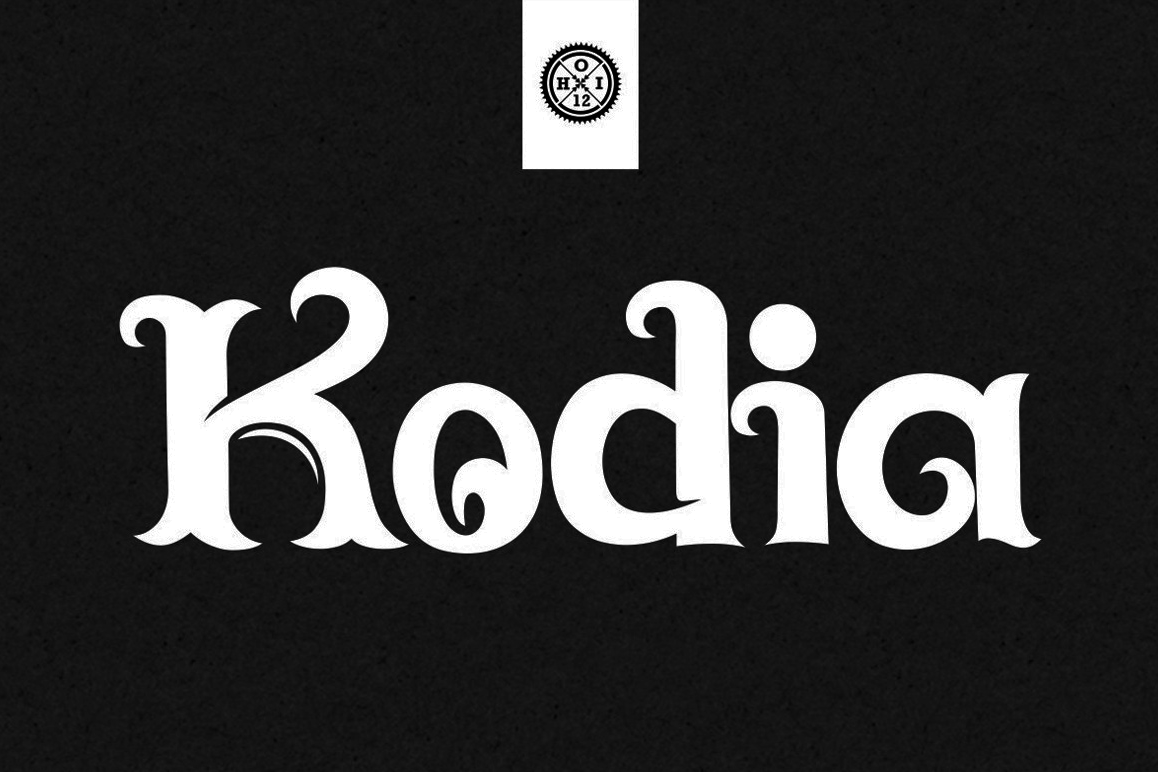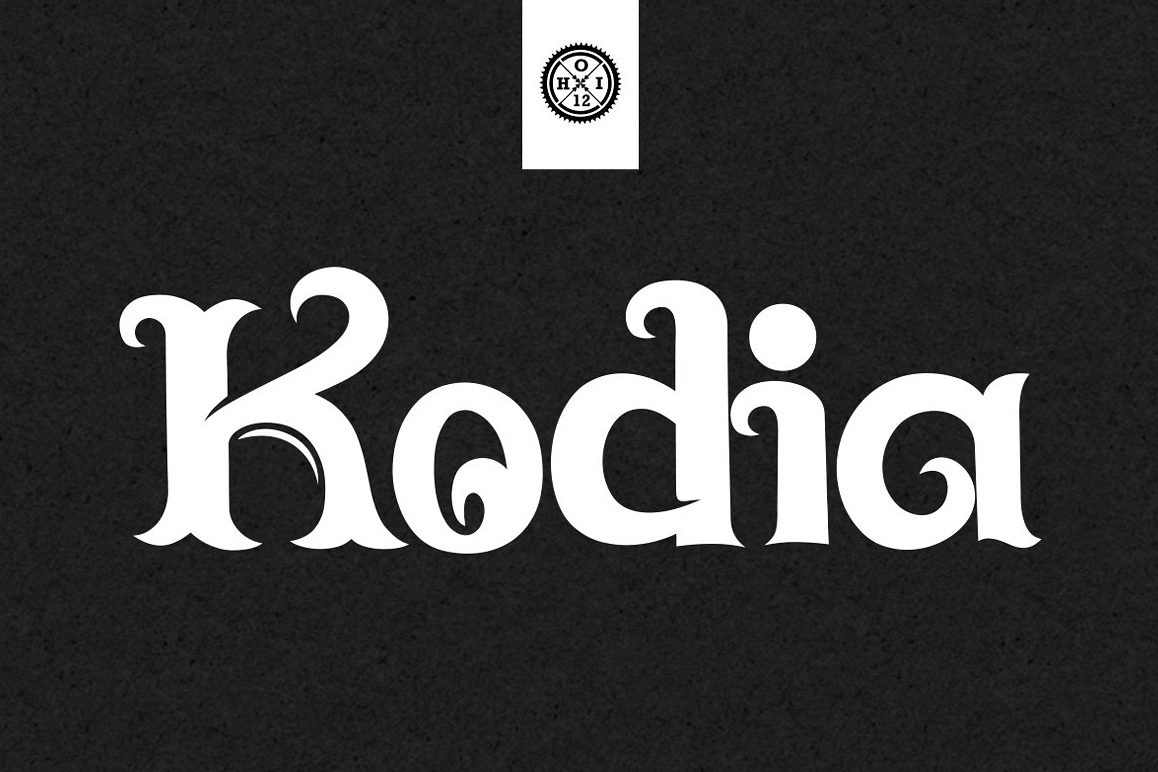
Kodia Font
Introducing a new Luxury display font.
comes with uppercase, lowercase, numerals, and punctuations
Kodia works great in any branding, logos, magazines, films.
The different weights give you full range to explore a whole host of applications,
while the outlined fonts give a real modern feel to any project.